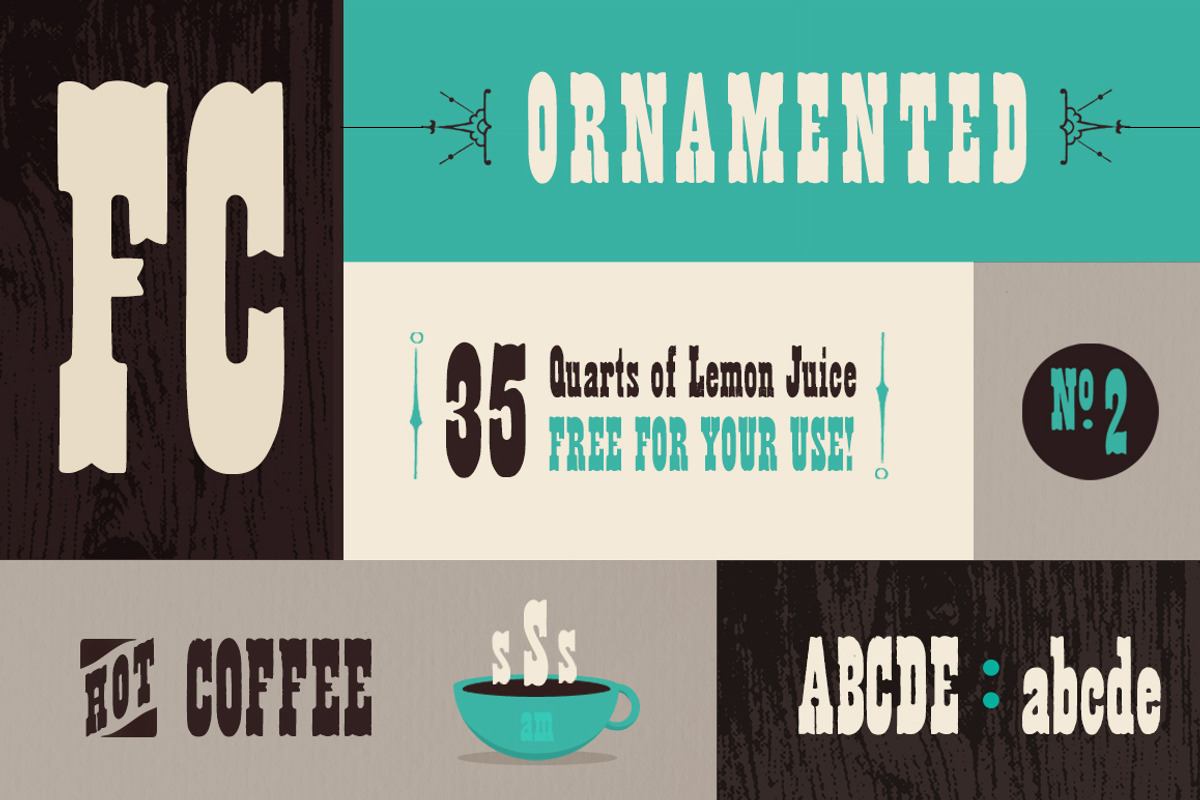
Bold, decorative, and rich with vintage flair, French Clarendon Ornamented Font Free Download is a striking display typeface rooted in 19th-century poster design. Often associated with classic circus themes, Western headlines, and Americana style, this font is perfect for logos, signage, packaging, event posters, and editorial layouts that demand bold presence and ornate detail.
With its extended slab serifs, high contrast strokes, and ornamental flair, French Clarendon stands out as a typographic statement piece. It adds drama, nostalgia, and a sense of tradition to any design, making it ideal for themed or heritage-inspired projects.